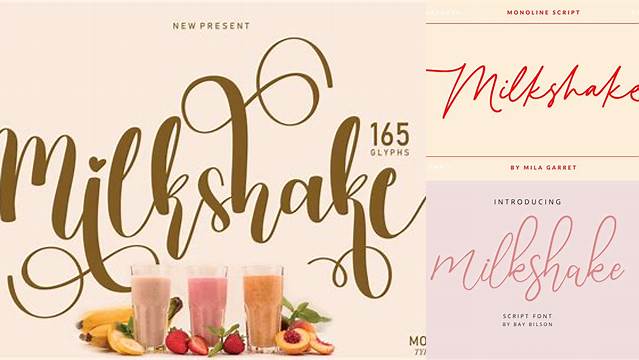
Milkshake Cursive Font: Free Download Guide
What is Milkshake Cursive Font?
Milkshake cursive font is a delightful typeface known for its playful curves and thick strokes. Designed by Laura Worthington, this font exudes a whimsical charm that makes it perfect for various creative projects. Its distinctive, flowing letters capture a sense of handwritten elegance while maintaining a modern, readable aesthetic. The Milkshake font family includes a variety of weights and styles, giving designers ample flexibility to choose the perfect look for their specific needs. Whether you're working on branding materials, invitations, or website graphics, the Milkshake font can bring a unique and engaging touch to your work. Its versatility extends to both digital and print media, making it a go-to option for designers seeking to add a bit of personality to their creations.
The font’s playful nature is enhanced by its smooth connections between letters, giving it a natural, flowing appearance. This makes it an excellent choice for projects that require a personal touch. Furthermore, the balanced weight of the strokes ensures that the font remains legible even at smaller sizes, making it suitable for body text as well as headlines. The overall effect is a font that is both eye-catching and functional, able to elevate any design project with its unique character.
One of the key features of the Milkshake cursive font is its ability to evoke a sense of nostalgia while remaining fresh and contemporary. This makes it a particularly popular choice for brands looking to connect with their audience on an emotional level. Whether you're designing a logo, creating marketing materials, or crafting social media content, Milkshake can help you create a memorable and impactful visual identity. Its unique blend of elegance and playfulness sets it apart from other cursive fonts, making it a valuable addition to any designer's toolkit.
The Allure of Cursive Fonts
Cursive fonts, like Milkshake cursive font, hold a special allure in the world of typography, evoking feelings of elegance, personalization, and creativity. Unlike their blocky, more formal counterparts, cursive fonts mimic the fluid strokes of handwriting, giving designs a human touch that is often missing in digital media. This makes them particularly effective for projects aiming to convey warmth, authenticity, or a sense of handcrafted quality. From wedding invitations to branding materials, cursive fonts add a layer of sophistication and charm that can elevate any design.
The appeal of cursive fonts lies in their ability to bridge the gap between the digital and the analog. In an age where much of our communication is mediated through screens, cursive fonts remind us of the tactile experience of writing with a pen or brush. This can create a stronger emotional connection with the viewer, making the design more memorable and impactful. Additionally, the unique letterforms of cursive fonts offer a visual contrast that can draw the eye and create a focal point in a design layout.
However, the use of cursive fonts requires careful consideration. While they can add a touch of elegance and personality, they can also be difficult to read if used improperly. Overly elaborate or densely packed cursive fonts can strain the eye and detract from the overall message. Therefore, it's essential to choose a cursive font that is legible and appropriate for the intended use. Factors such as font size, spacing, and background color can all impact the readability of cursive fonts. When used thoughtfully, cursive fonts can be a powerful tool for creating visually stunning and emotionally resonant designs. Milkshake cursive font is particularly known for its balance between flair and readability, which sets it apart from other fonts.
Why Choose Milkshake for Your Projects?
Why should you choose Milkshake cursive font for your projects? The answer lies in its unique blend of charm, versatility, and readability. Unlike some cursive fonts that can be overly ornate or difficult to decipher, Milkshake strikes a perfect balance between elegance and clarity. Its playful curves and smooth strokes make it visually appealing, while its well-defined letterforms ensure that it remains legible even at smaller sizes. This makes it a versatile choice for a wide range of design applications, from logos and branding materials to invitations and website graphics.
One of the key advantages of Milkshake is its ability to convey a sense of warmth and personality. Its handwritten style adds a human touch to your designs, making them more engaging and memorable. This can be particularly effective for brands looking to connect with their audience on an emotional level. Whether you're designing a logo for a bakery, creating marketing materials for a children's boutique, or crafting social media content for a lifestyle brand, Milkshake can help you create a visual identity that resonates with your target audience. Milkshake cursive font provides a friendly and approachable aesthetic, setting the tone right.
Furthermore, Milkshake cursive font is incredibly versatile. It works well in both digital and print media, and it pairs seamlessly with a variety of other fonts. Whether you're creating a minimalist design or a more elaborate composition, Milkshake can be easily integrated into your overall aesthetic. Its adaptability makes it a valuable addition to any designer's toolkit, allowing you to create visually stunning and effective designs across a range of different platforms and applications.